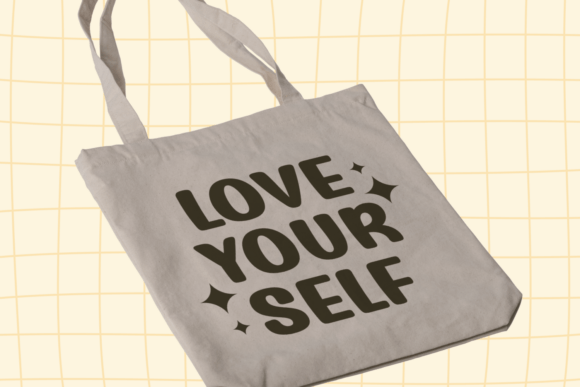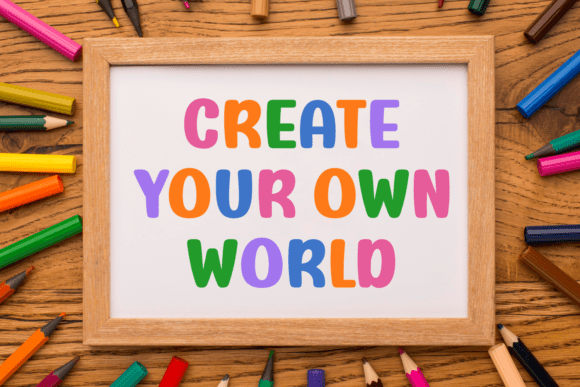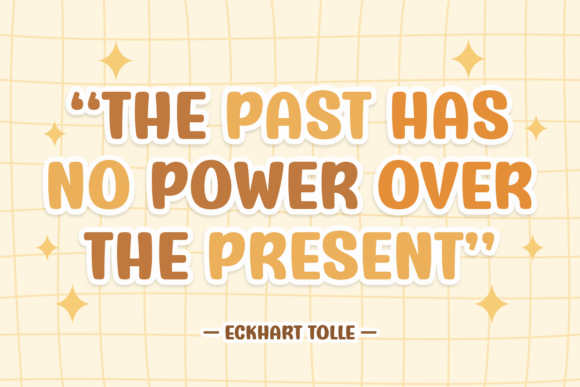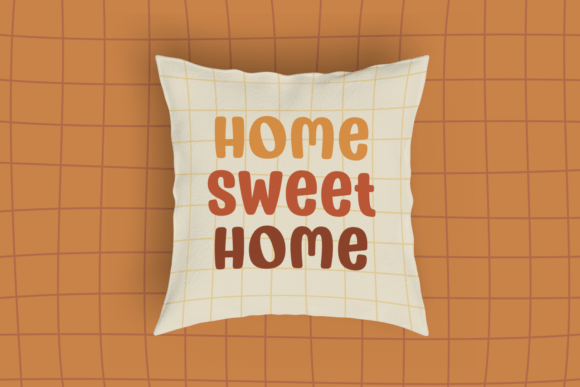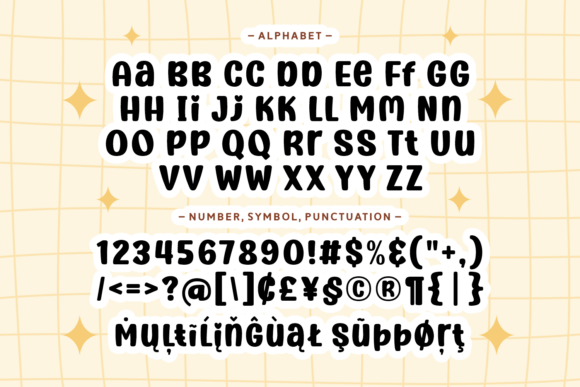
Adding a Dash of Joy to Your Designs
Remember that moment when you stumbled upon the perfect font for a project? The one that instantly brought your concept to life and elevated the entire design? For many designers, that moment is what makes all the hard work worth it. And for those who are about to experience it, we’re excited to introduce the Bright Roads Font – a cheerful and playful display font designed to spread warmth and positivity.
With its bold, rounded letterforms and charming details, the Bright Roads Font is the perfect addition to any project. Whether you’re creating a children’s book, branding a new product, or crafting social media graphics, this font is sure to shine in vibrant color palettes and playful layouts. Its unique blend of retro-inspired and modern elements makes it an invaluable tool for designers looking to add a touch of joy and approachability to their work.
Bright Roads Font Key Features
- Font Family: Bright Roads Font is a sans-serif font family, ideal for use in various digital applications, including signage, wayfinding, and digital displays.
- Character Set: The font includes a comprehensive set of characters, including uppercase and lowercase letters, numerals, punctuation marks, and special characters.
- Font Size: The font is designed to be highly legible at various font sizes, from 12pt to 72pt, making it suitable for use in a wide range of applications.
- Resolution: The font is optimized for use at high resolutions, including 300 DPI and 600 DPI, ensuring crisp and clear rendering on high-resolution displays.
- Unique Characteristics: The Bright Roads Font features a unique blend of modern and traditional design elements, with clean lines, rounded edges, and a subtle flair, making it highly distinctive and memorable.
Bright Roads Font Review
Overall, I’m quite impressed with Bright Roads Font. It’s a bold, modern font that’s perfect for creating eye-catching designs.
- Unique Design:** Bright Roads Font has a distinctive look that sets it apart from other fonts.
- High Legibility:** The font is highly legible, even at smaller font sizes.
- Perfect for Headings:** Bright Roads Font is ideal for creating bold, attention-grabbing headings.
- Limited Character Set:** Bright Roads Font has a limited character set, which may not be suitable for complex designs or text-heavy layouts.
- No Italic or Oblique Options:** The font only comes in a single style, which may limit its versatility.
Overall, Bright Roads Font is a solid choice for designers looking for a bold, modern font. While it has some limitations, its unique design and high legibility make it a great option for creating eye-catching designs.
Tips for Getting the Most Out of Bright Roads Font
Use Bright Roads Font in combination with bold colors and contrasting backgrounds to create a visually appealing design. Experiment with different font sizes and styles to add emphasis and hierarchy to your design. Bright Roads Font is also suitable for creating custom icons and graphics.
Bright Roads Font is ideal for creating:
– Headings and titles in graphic designs
– Custom logos and icons
– Professional-looking presentations and documents
– Eye-catching social media graphics